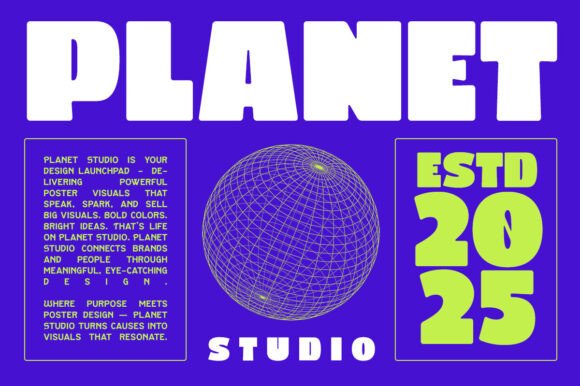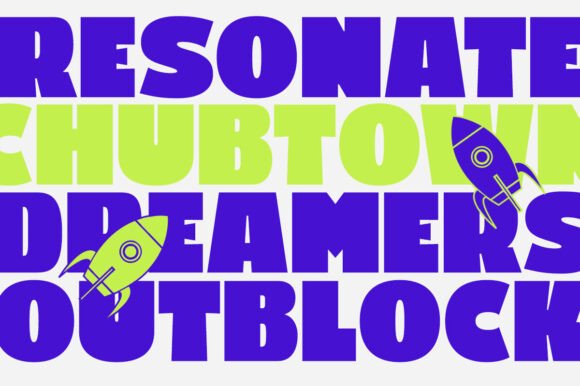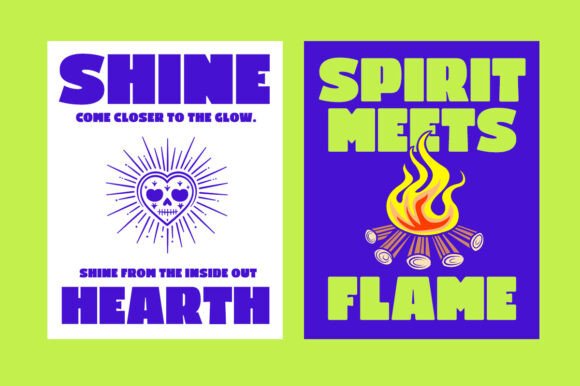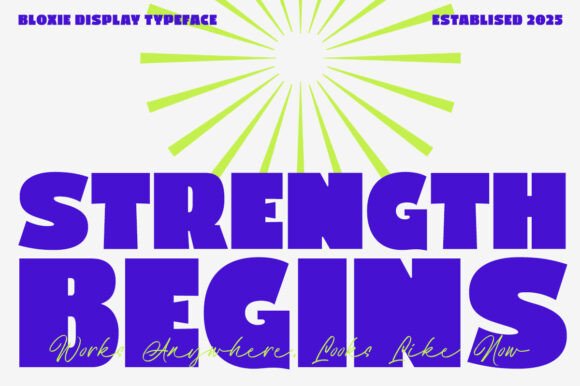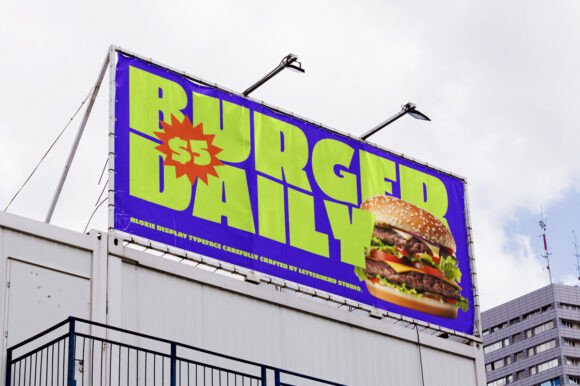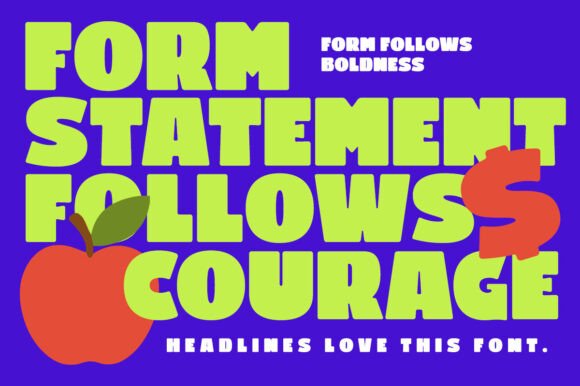
The Perfect Font for Making a Statement
Have you ever stared at a blank page, feeling stuck and uninspired? It happens to the best of us. But then, like a spark of creativity, it hits – a bold idea, a striking color palette, or, in this case, the perfect font. That’s when the magic happens, and your design begins to take shape.
Enter Bloxie Font, a game-changing display typeface designed to make a lasting impression. Available in Regular and Rounded styles, this powerful font is perfect for grabbing attention in posters, logos, and headlines. Its compact structure and thick, geometric letterforms ensure that your message is conveyed with maximum impact. Whether you’re a seasoned designer or just starting out, Bloxie Font is an invaluable addition to your toolkit, offering a versatile and impactful solution for all your design needs.
Bloxie Font Key Features
- Font Style: A sans-serif font with a modern and geometric feel.
- Unique Characteristics: Distinctive geometric shapes, clean lines, and a strong x-height make it highly legible and versatile for various design applications.
Bloxie Font Review
I recently had the chance to work with the Bloxie Font, and I’m excited to share my honest review with you. ✨ One of the things that really stands out about Bloxie is its playful, energetic vibe. The font is perfect for anything that needs a bit of whimsy and fun.
Here are some of the things that work well with Bloxie:
- ✨ Unique and quirky design: Bloxie is not your average font. It’s got a lot of character and is sure to add some personality to your projects.
- ✨ Wide range of uses: Bloxie is versatile and can be used for everything from logos and branding to web design and print materials.
- ✨ Easy to read: Despite its playful design, Bloxie is surprisingly easy to read, making it a great choice for any project.
- ⚠️ Limited font weights: While Bloxie has a lot of character, it’s limited to a few font weights, which can make it difficult to use in certain situations.
- ⚠️ Not suitable for body text: While Bloxie is great for headlines and titles, it’s not the best choice for body text due to its playful design.
Overall, I’d say Bloxie is a great choice for anyone looking to add some personality to their projects. Just be aware of its limitations and use it wisely.
The Bloxie Font is perfect for creating playful, energetic designs. Use it for:
- Children’s book covers and illustrations
- Party invitations and social media graphics
For best results, use the Bloxie Font in combination with bold, bright colors and creative graphics.